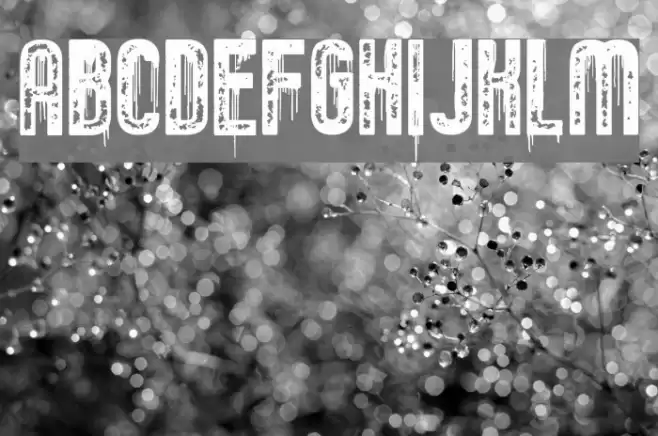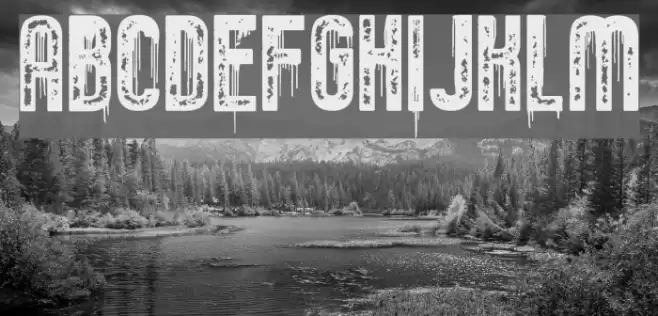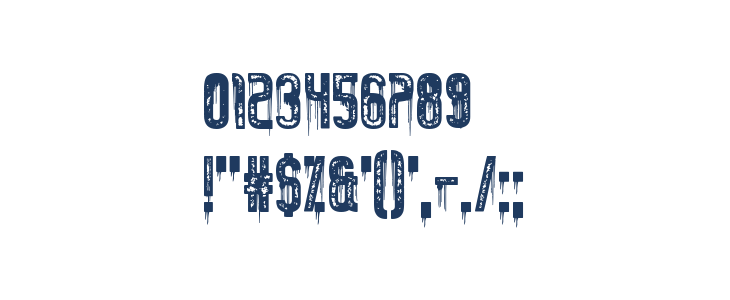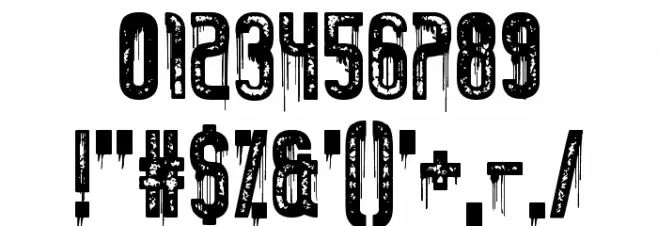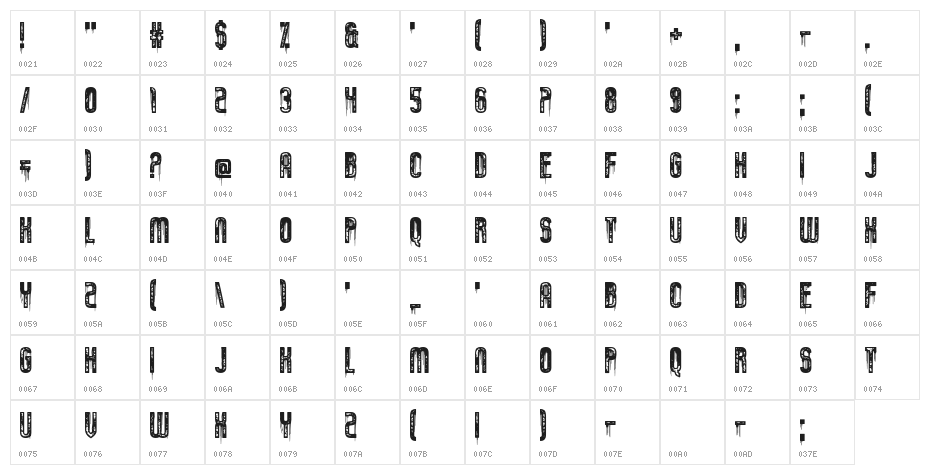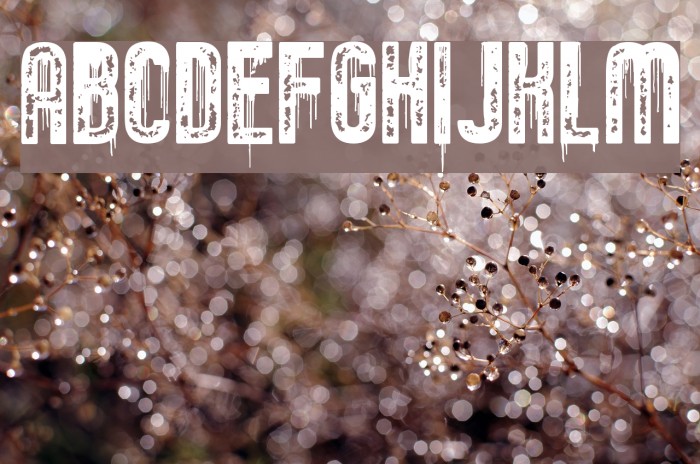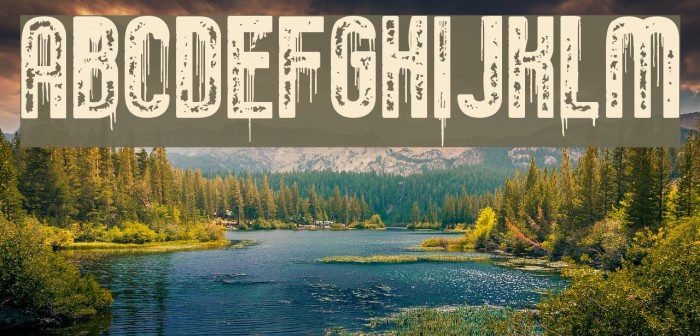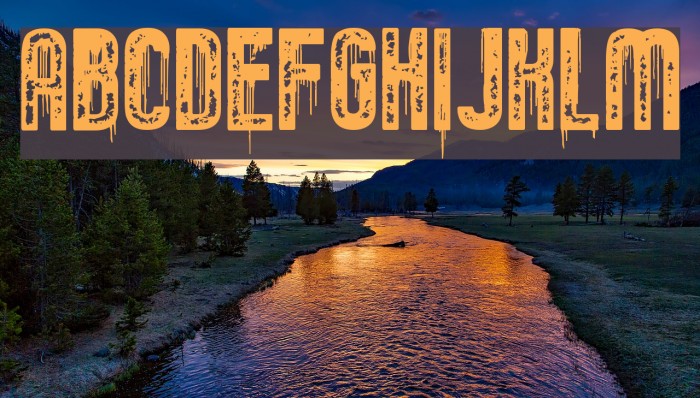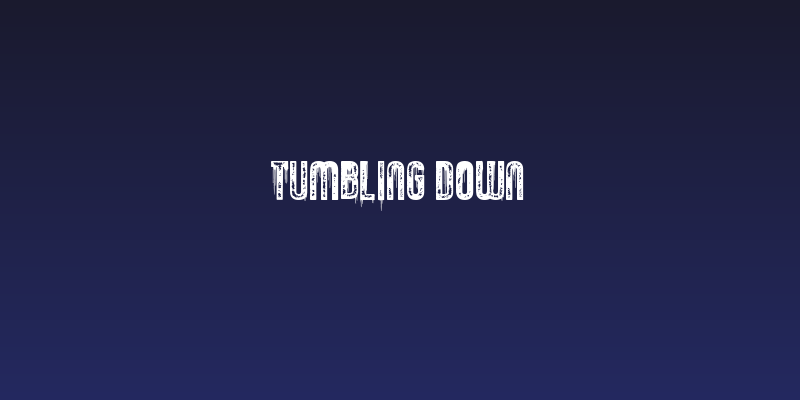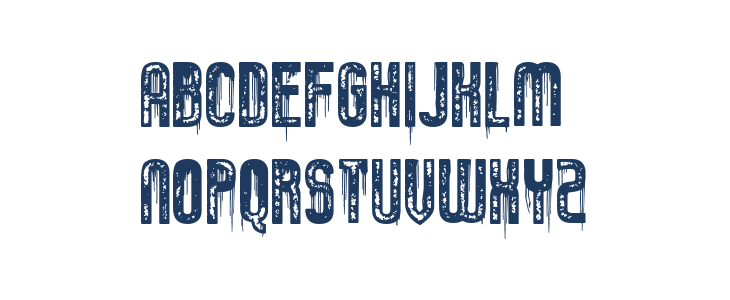
Tumbling Down Font
Tumbling Down Description
This font features a bold and distressed style, with a dripping effect that gives it a grungy, urban appearance. The characters are blocky and robust, with uneven edges and a textured surface that suggests wear and tear. The design is reminiscent of graffiti or street art, making it ideal for projects that require a raw, edgy aesthetic. The uppercase and lowercase letters maintain a consistent height, while the numbers and special characters follow the same distressed theme, ensuring uniformity across all elements.
A bold, distressed font with a grungy, dripping effect from Uncategorized fonts.
- Proposed Projects: Ideal for album covers, streetwear branding, event posters, and urban-themed designs.
- Overall Style: Grunge, Urban, Edgy